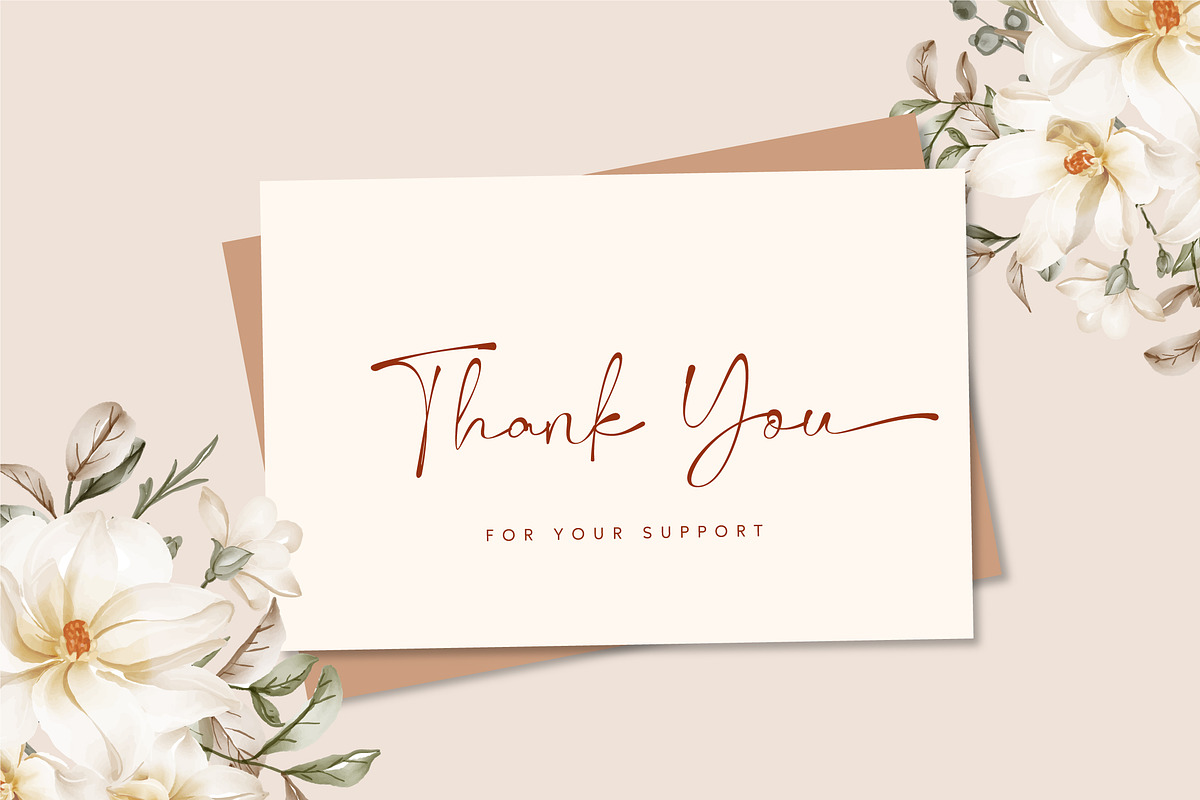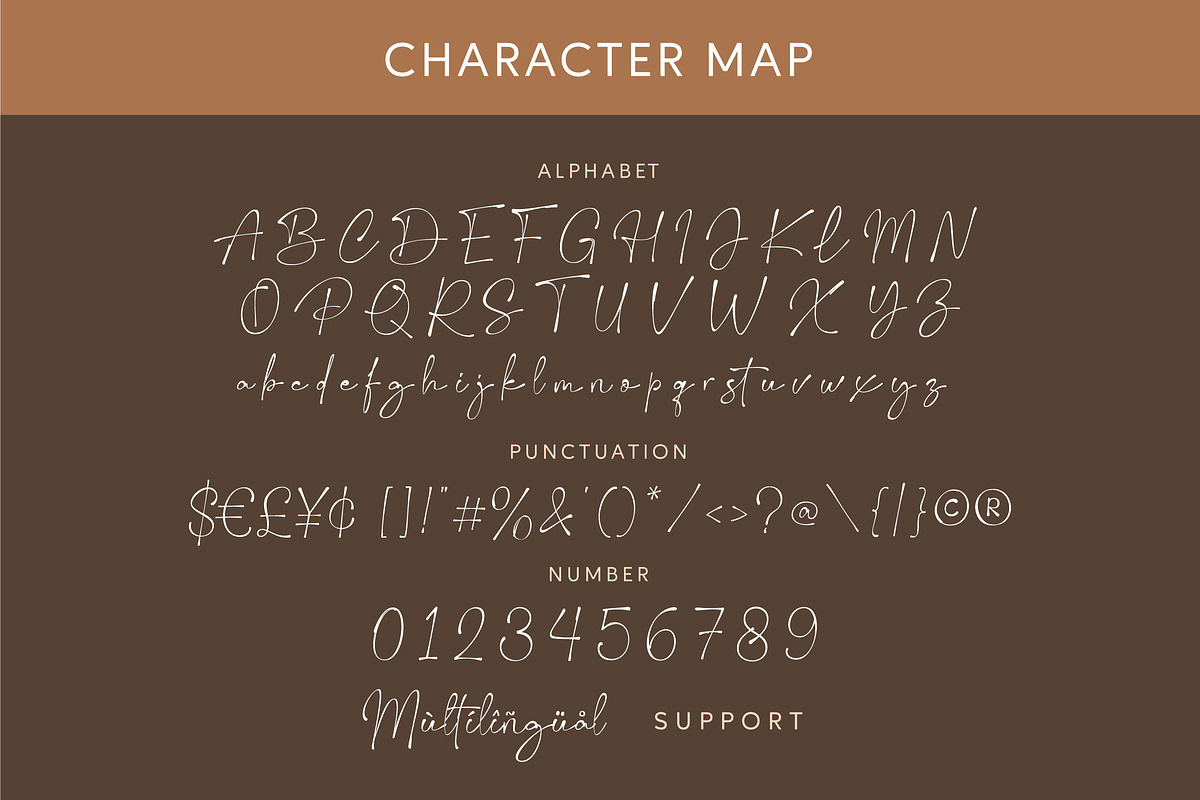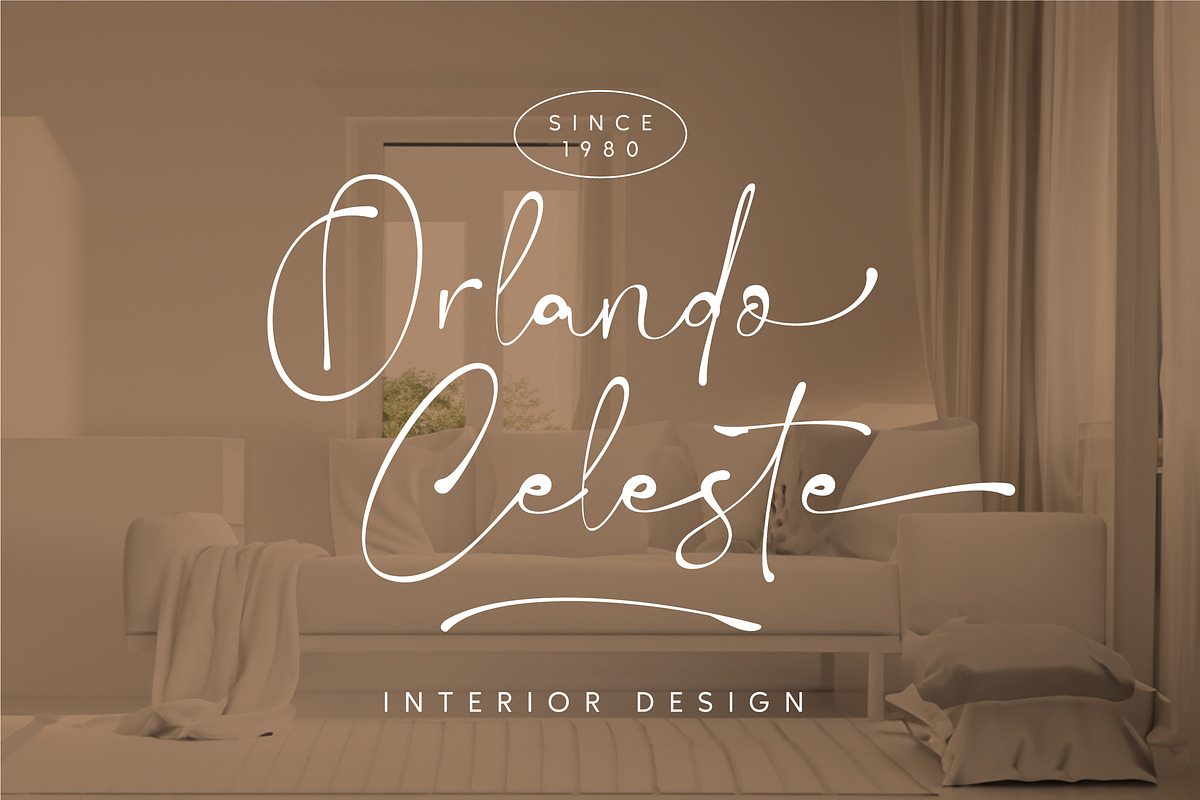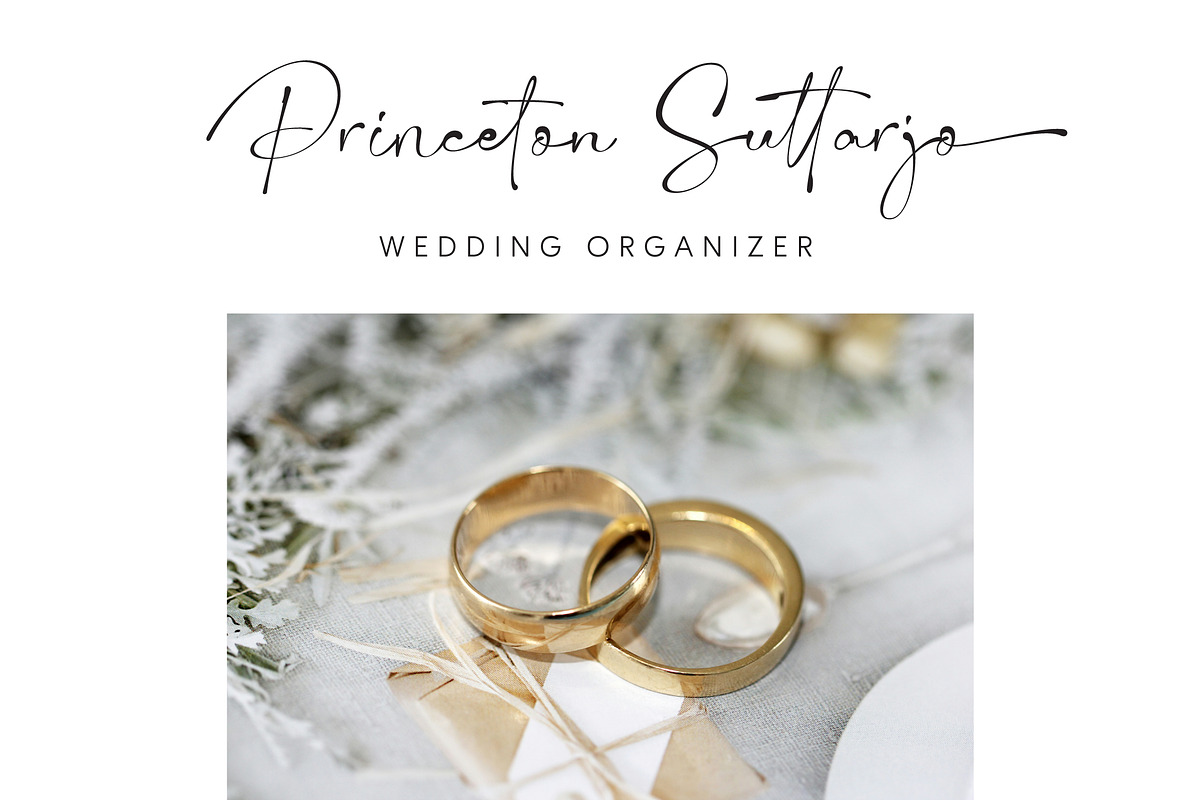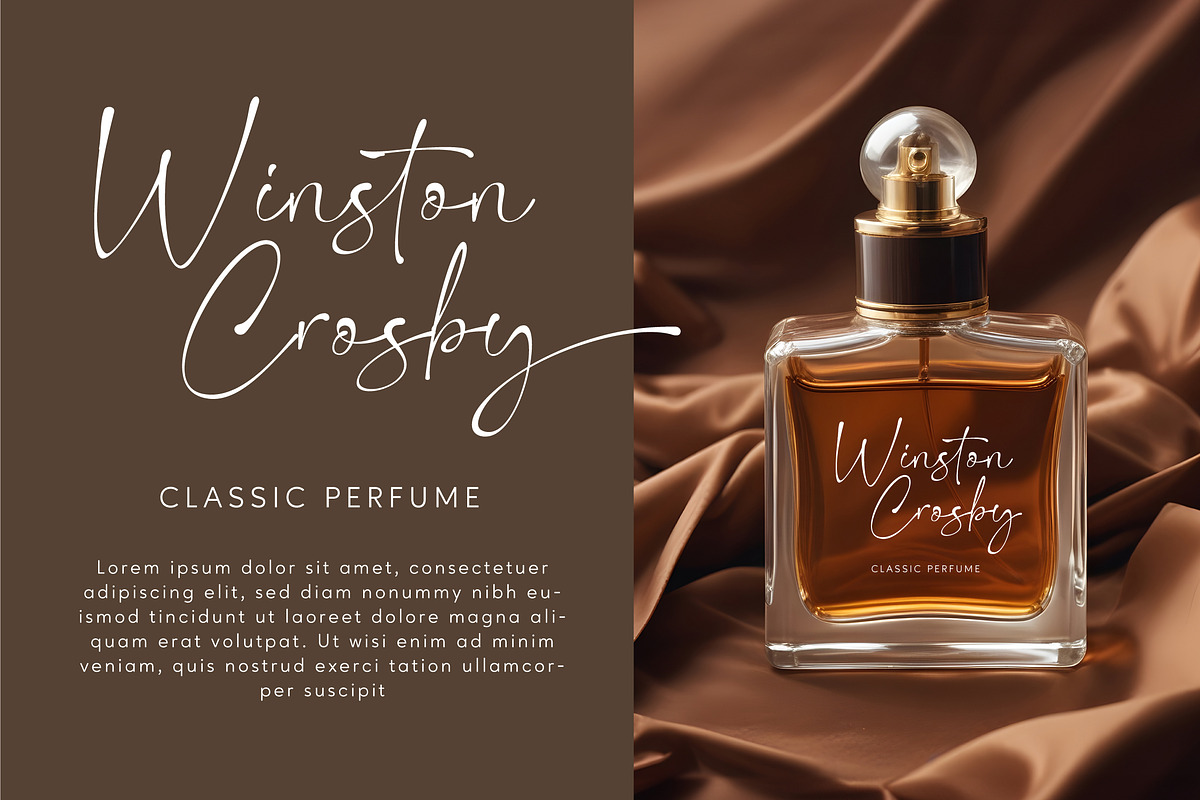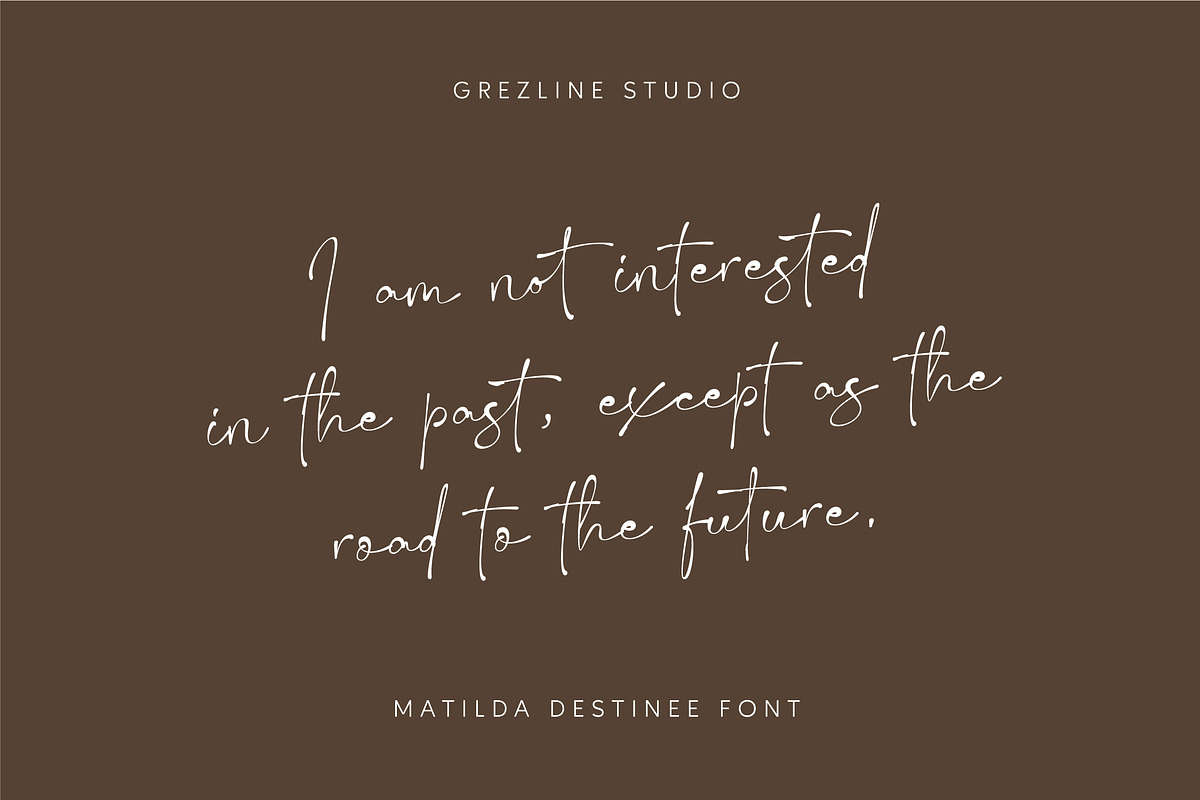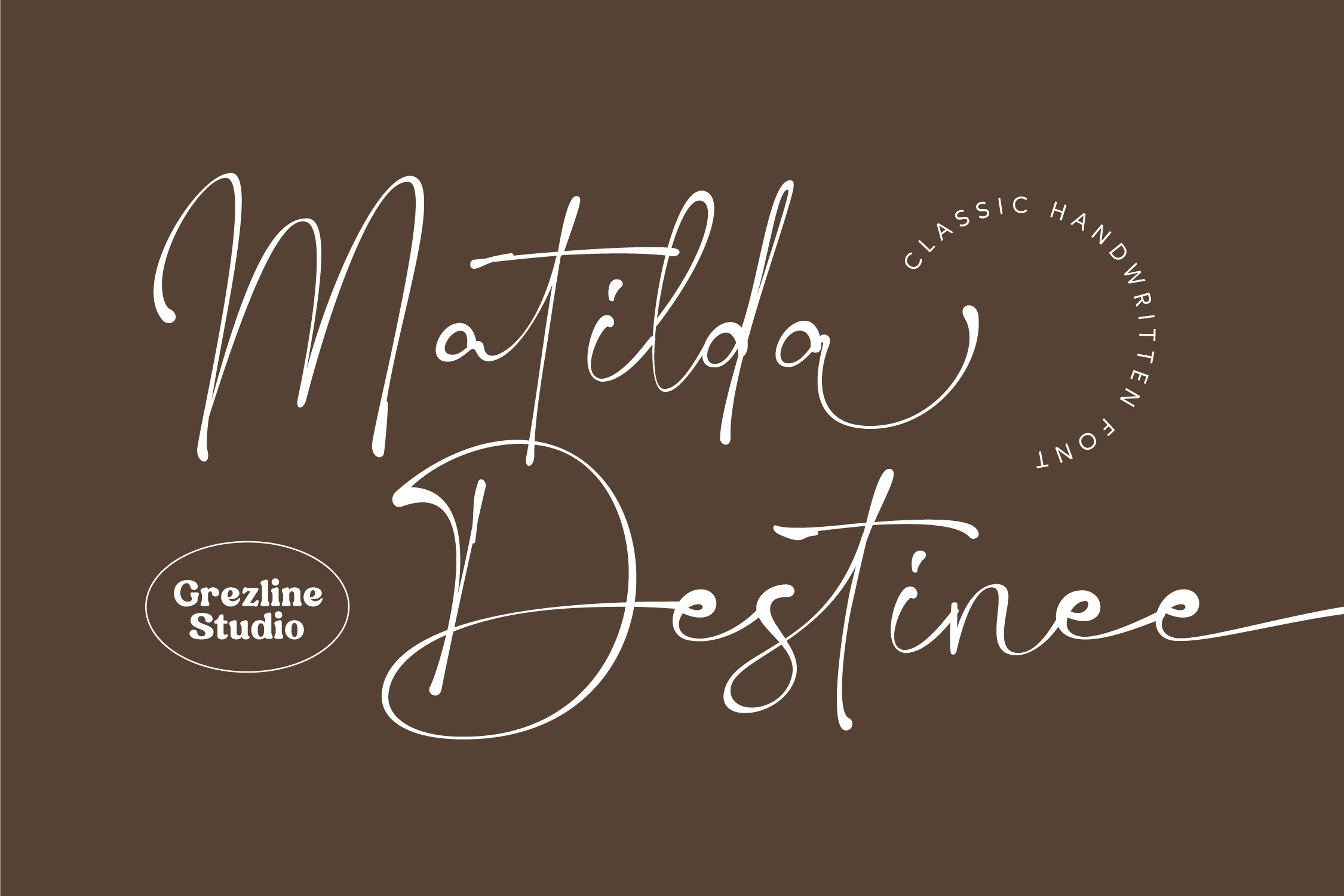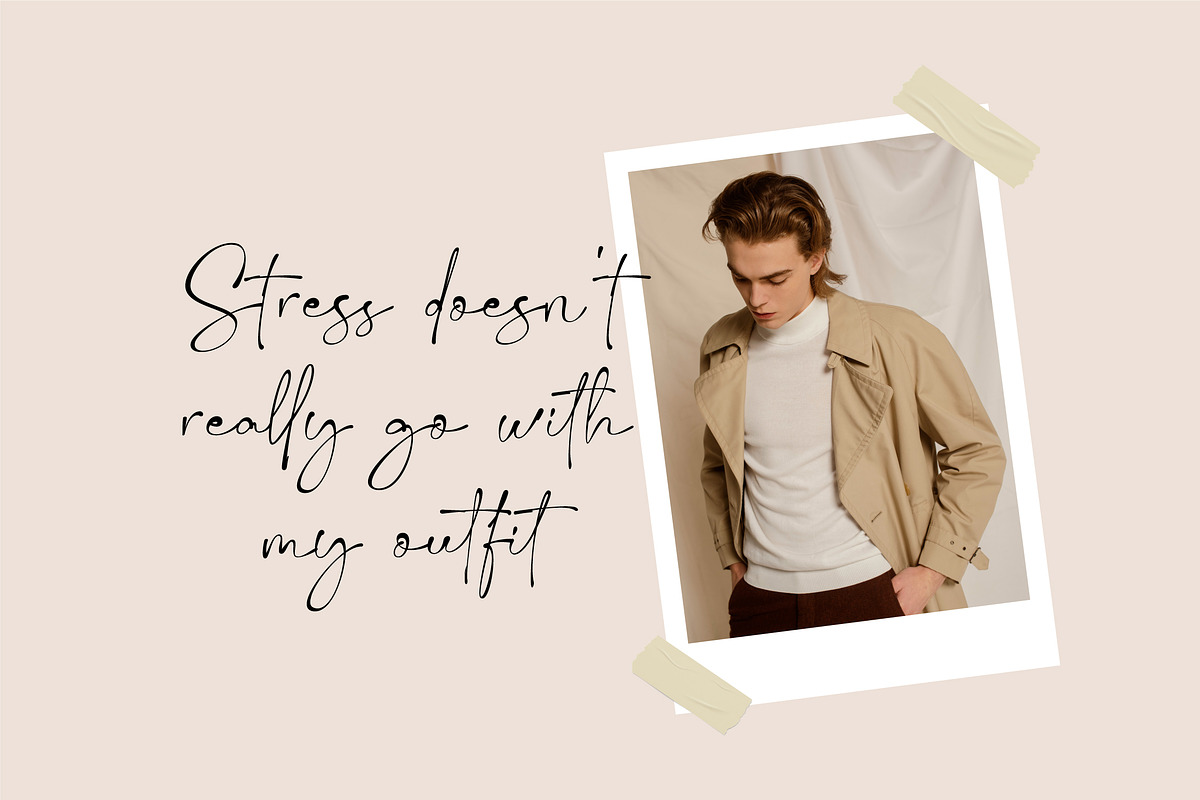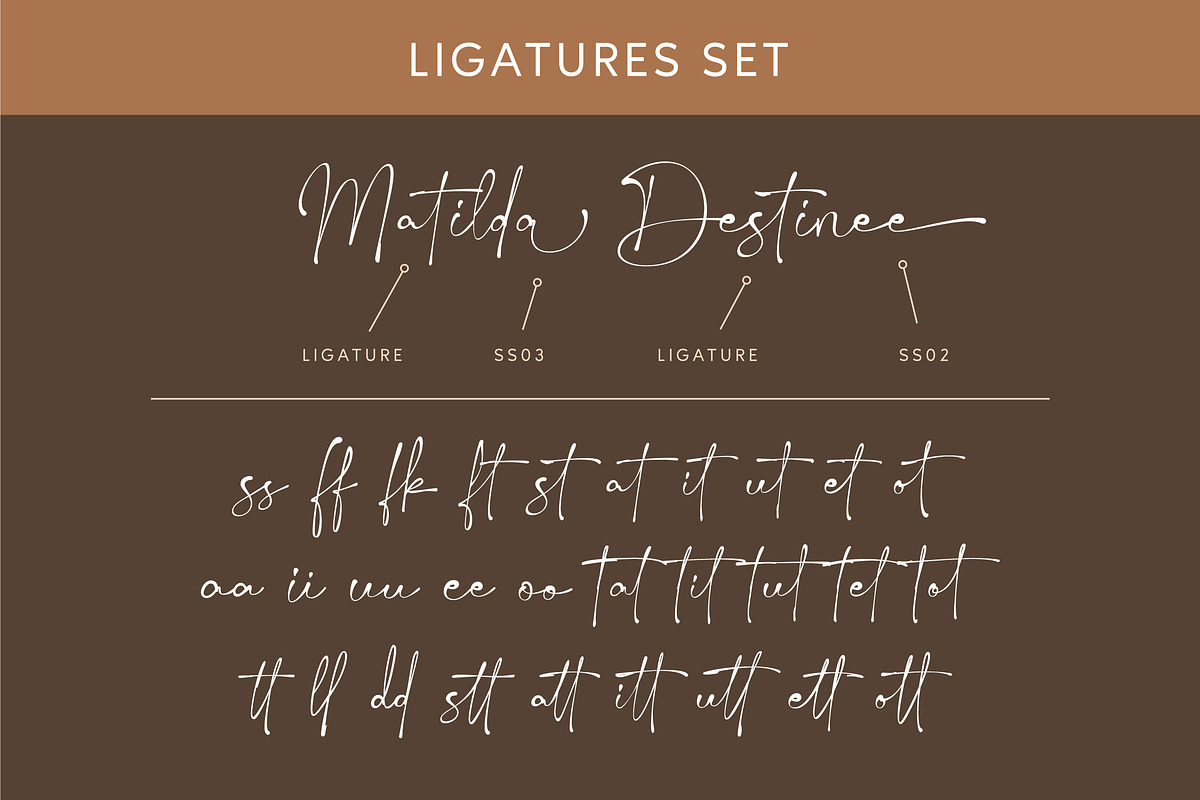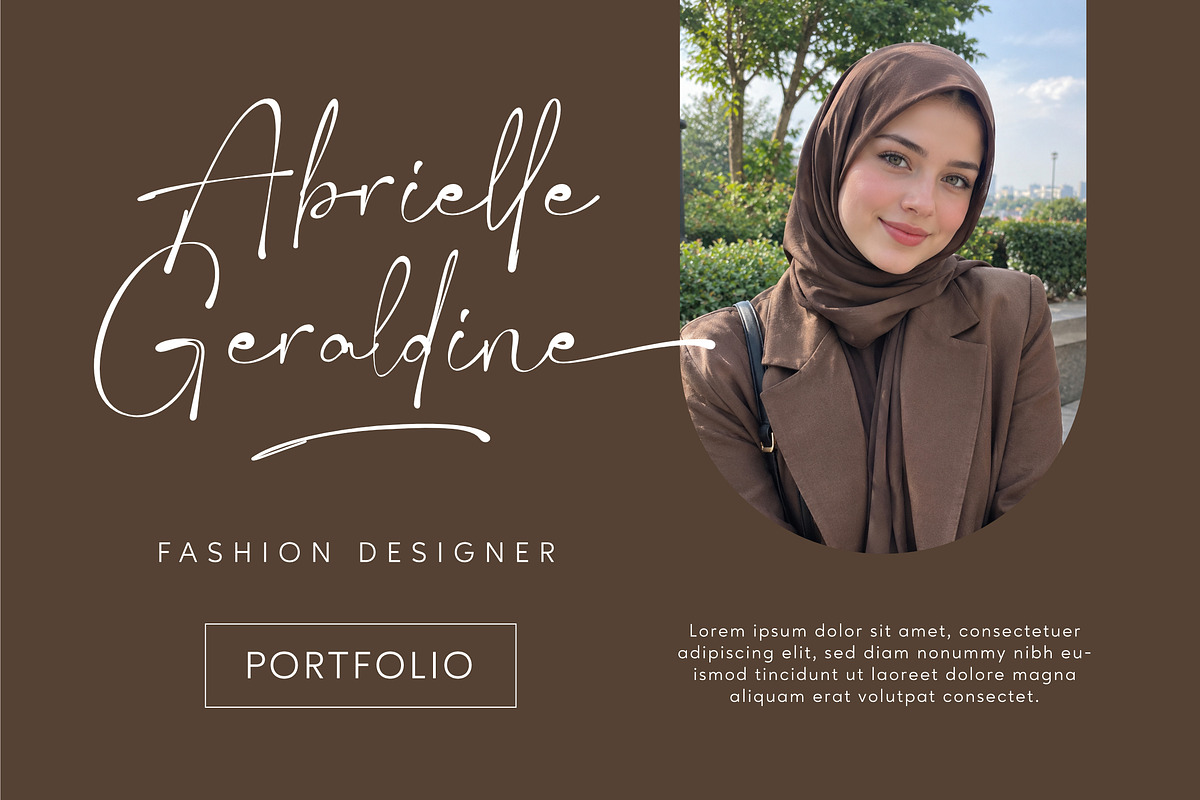
Matilda Destinee - Handwritten Font
Matilda Destinee is a handwritten signature script font. This font is perfect use for fashion-related design. Matilda Destinee font is also usable in a wide range of works such as logo/personal branding, greeting cards, wedding stationery, social media quotes, and much more!
Alternate and Ligature
Multilingual Language